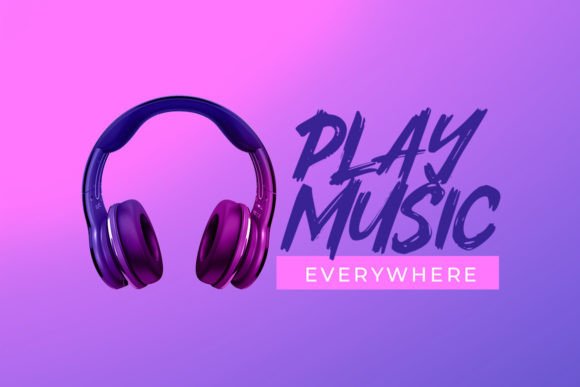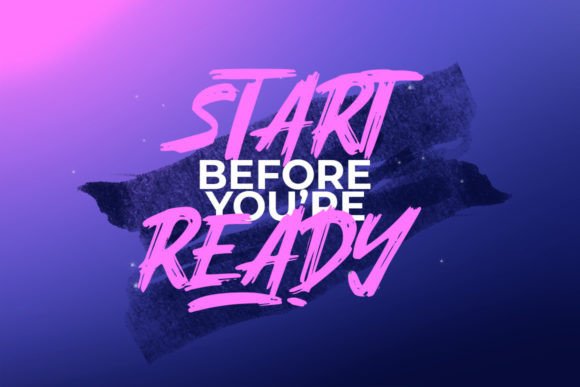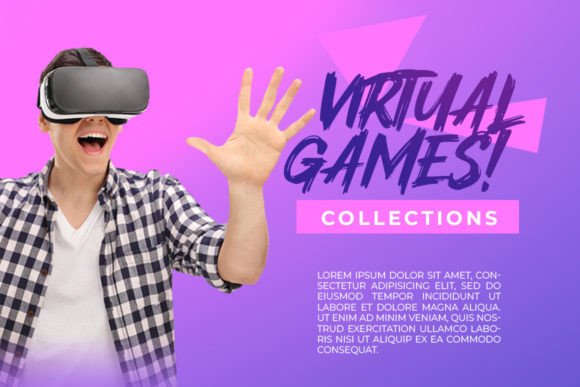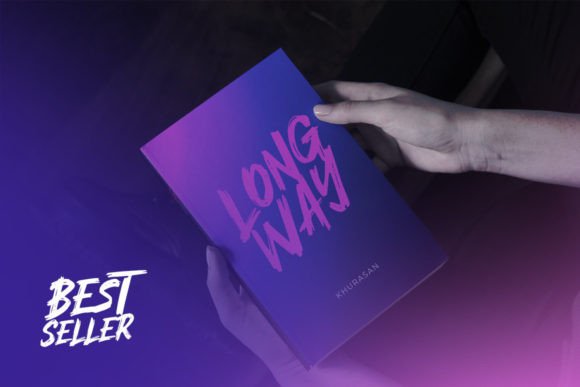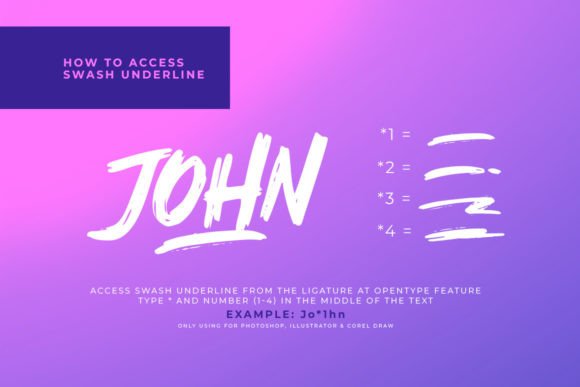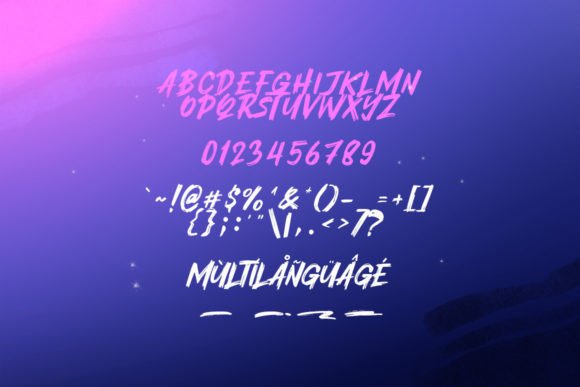
Introduction to Long Games Font
Have you ever stared at a blank canvas, struggling to find the perfect font to bring your creative project to life? You’re not alone. We’ve all been there, searching for that elusive combination of style and sophistication to make our designs truly stand out. But what if I told you there’s a font that could change all that?
Meet the Long Games Font, a modern brush font that’s perfect for posters, logos, magazines, book covers, banners, and many more. This quirky display font is a game-changer for designers, offering a high-quality design resource that’s sure to elevate any creative project. And the best part? You can download it for free, complete with a transparent background that makes it easy to integrate into your designs.
With the Long Games Font, you’ll have access to a versatile and stylish design element that’s sure to make your designs pop. Whether you’re a seasoned pro or just starting out, this font is a valuable addition to any design arsenal.
Key Features of Long Games Font
- Unique, high-quality design perfect for creative projects, such as video games, animations, or digital art.
- Designed to be highly legible, even at small font sizes, making it ideal for use in a variety of creative projects.
- Comes with a comprehensive character set, including uppercase and lowercase letters, numbers, and punctuation marks.
Honest Review: Long Games Font
As a designer, I’m always on the lookout for unique and high-quality design resources to elevate my creative projects. The Long Games Font caught my attention with its quirky and playful style. ✨
I downloaded the font for free, and I was impressed by its crisp and clear typography. The transparent background makes it easy to use on any background, which is a must-have for any designer. ✨
Here are some of the things that I like about the Long Games Font:
- Its eclectic style adds a fun touch to any creative project
- The font is highly customizable, making it perfect for logos, branding, and other design elements
- The transparent background makes it easy to use on any background
- The font may not be suitable for all types of projects, particularly those that require a more professional or formal tone ⚠️
- The font may not be as versatile as other fonts in terms of its range of sizes and styles ⚠️
Overall, I’m impressed with the Long Games Font, and I would recommend it to designers looking for a unique and playful font to add to their design resource collection. It’s a great addition to any creative project, and it’s available for free download, making it a valuable resource for designers on a budget.
How to Use Long Games Font
The Long Games Font is a high-quality design resource perfect for creative projects that require a unique and eye-catching style. This font is available for free download, making it an ideal choice for designers and artists on a budget.
Tips for Getting the Most Out of Long Games Font
For the best results, use the Long Games Font on a transparent background to really make it stand out. You can also experiment with different font sizes and colors to add extra flair to your design.
The Long Games Font is perfect for a variety of creative projects, including video game graphics, movie posters, and advertising campaigns. Its unique style and high-quality design make it an ideal choice for designers and artists looking to add a touch of sophistication to their work.